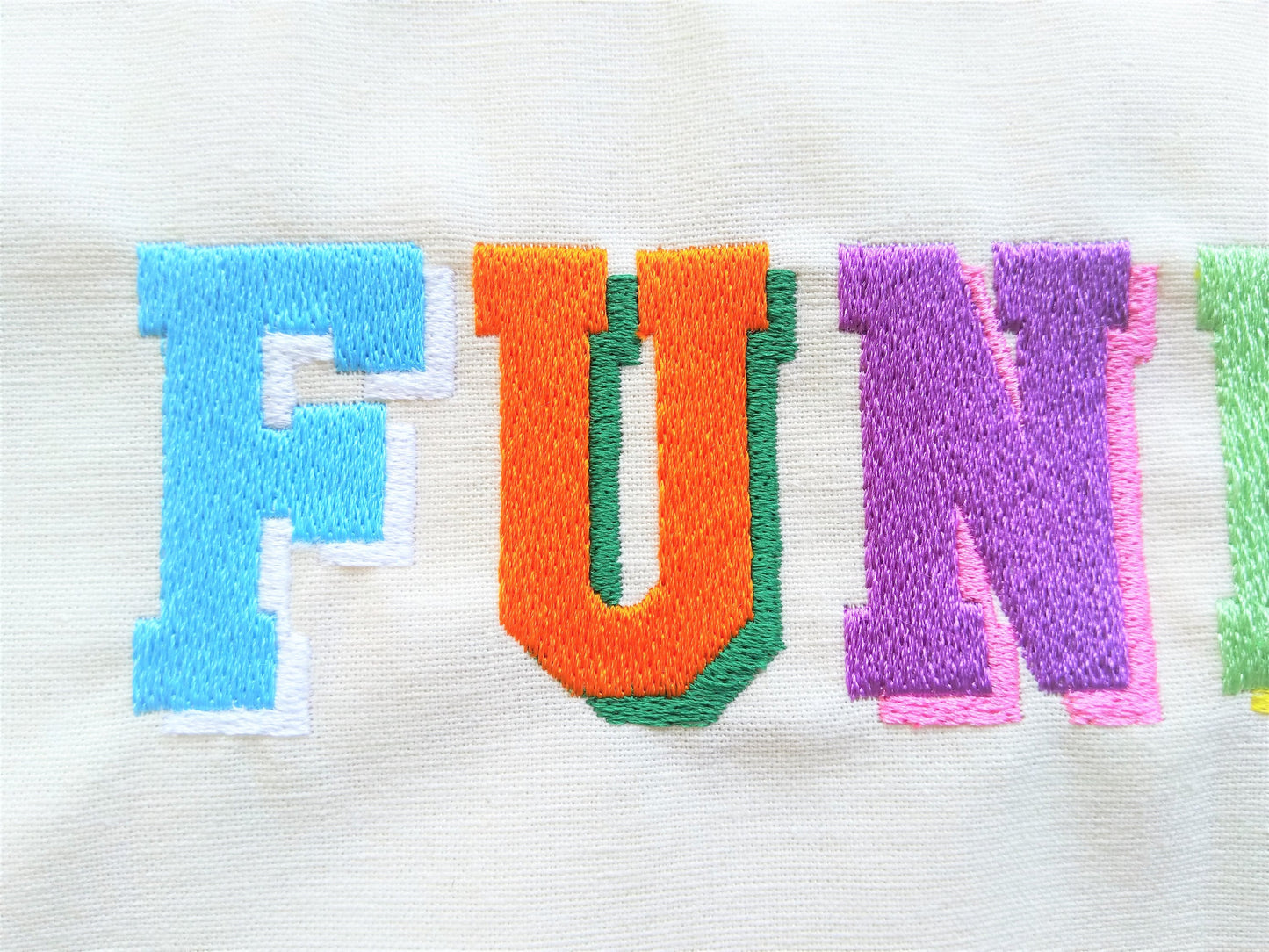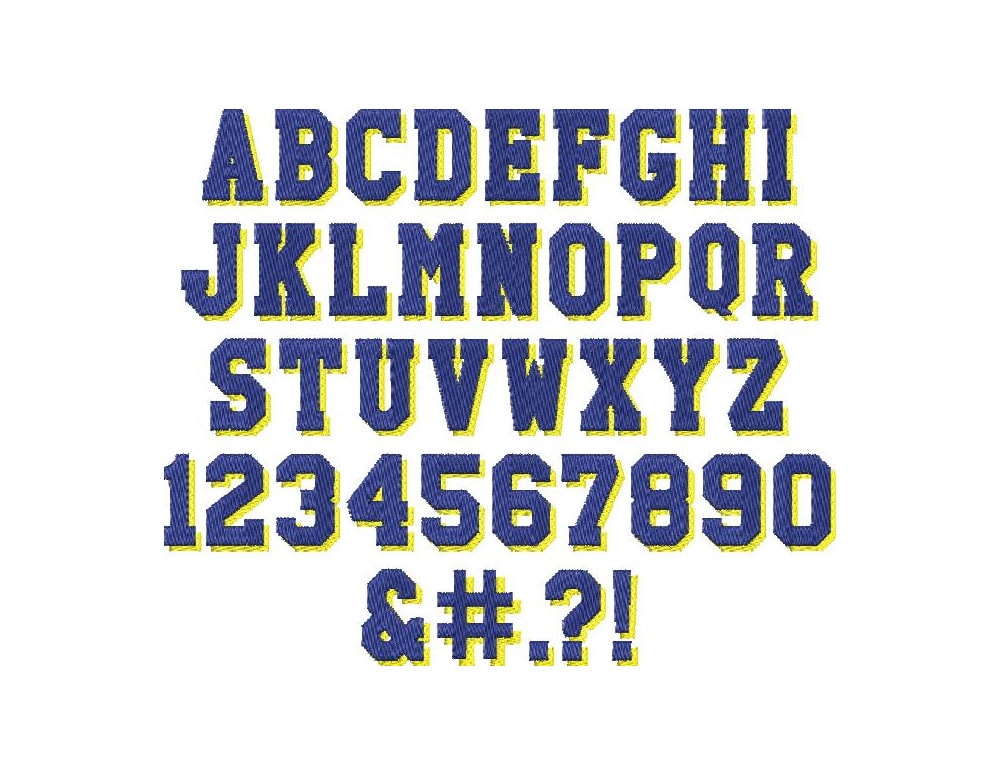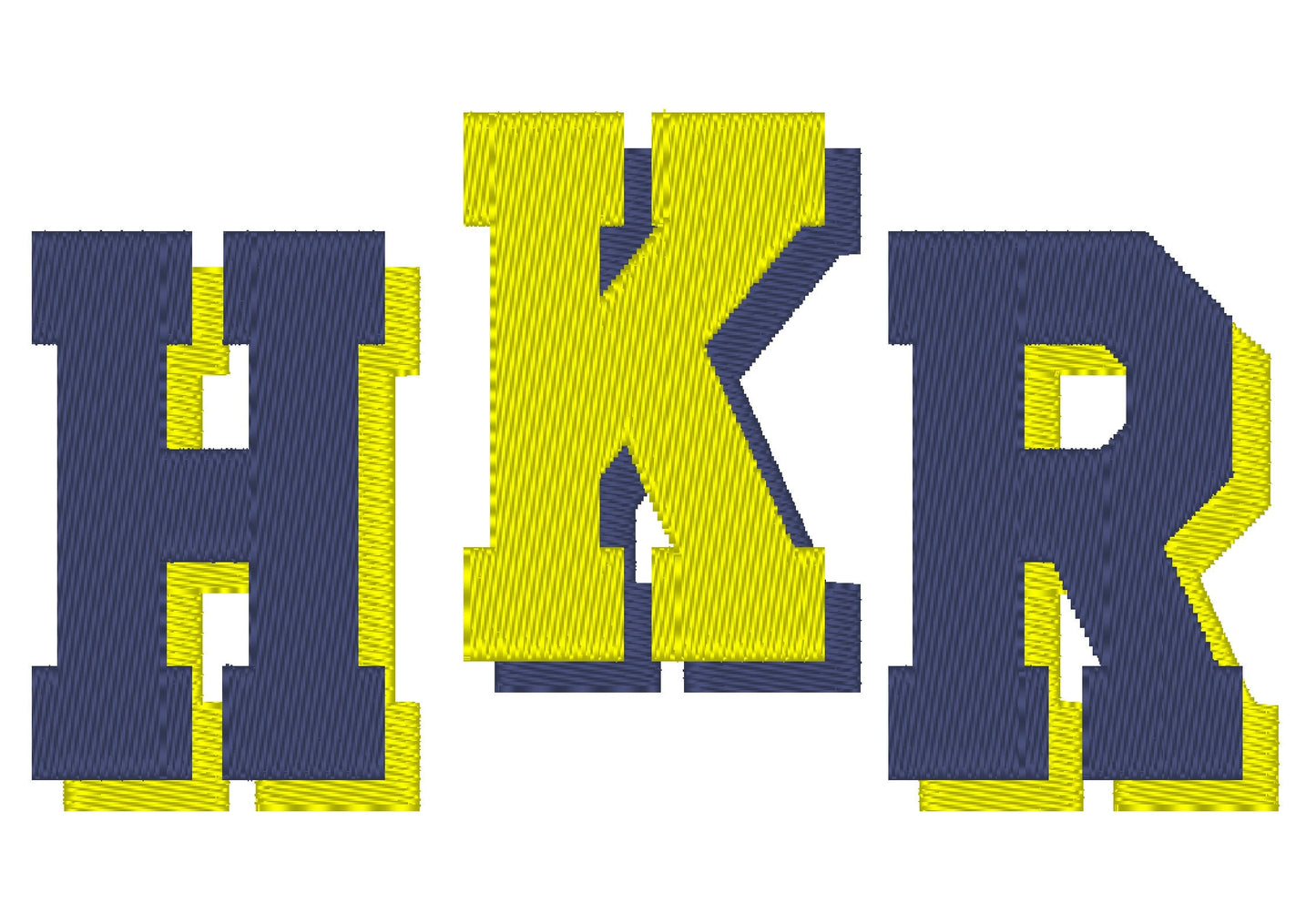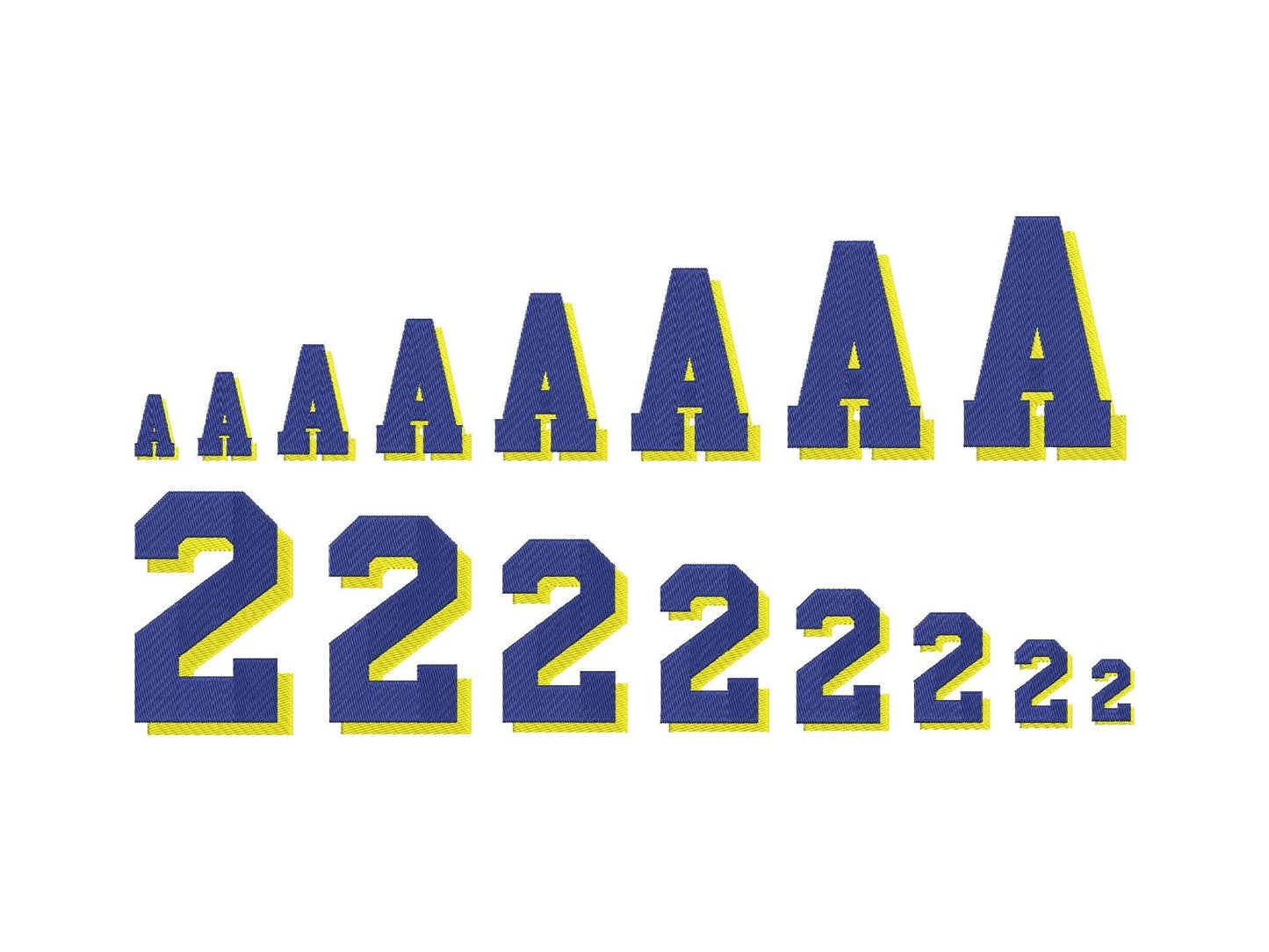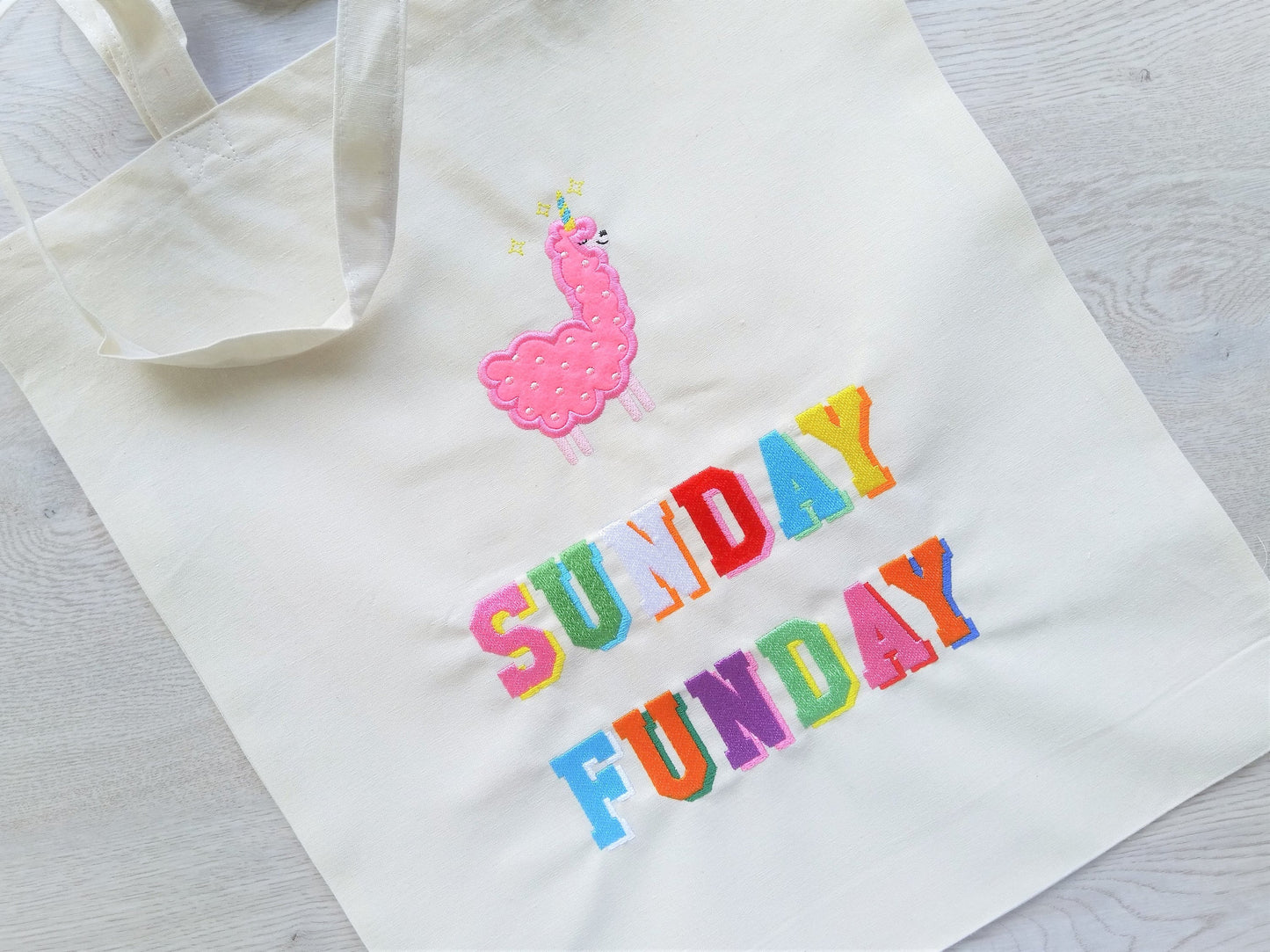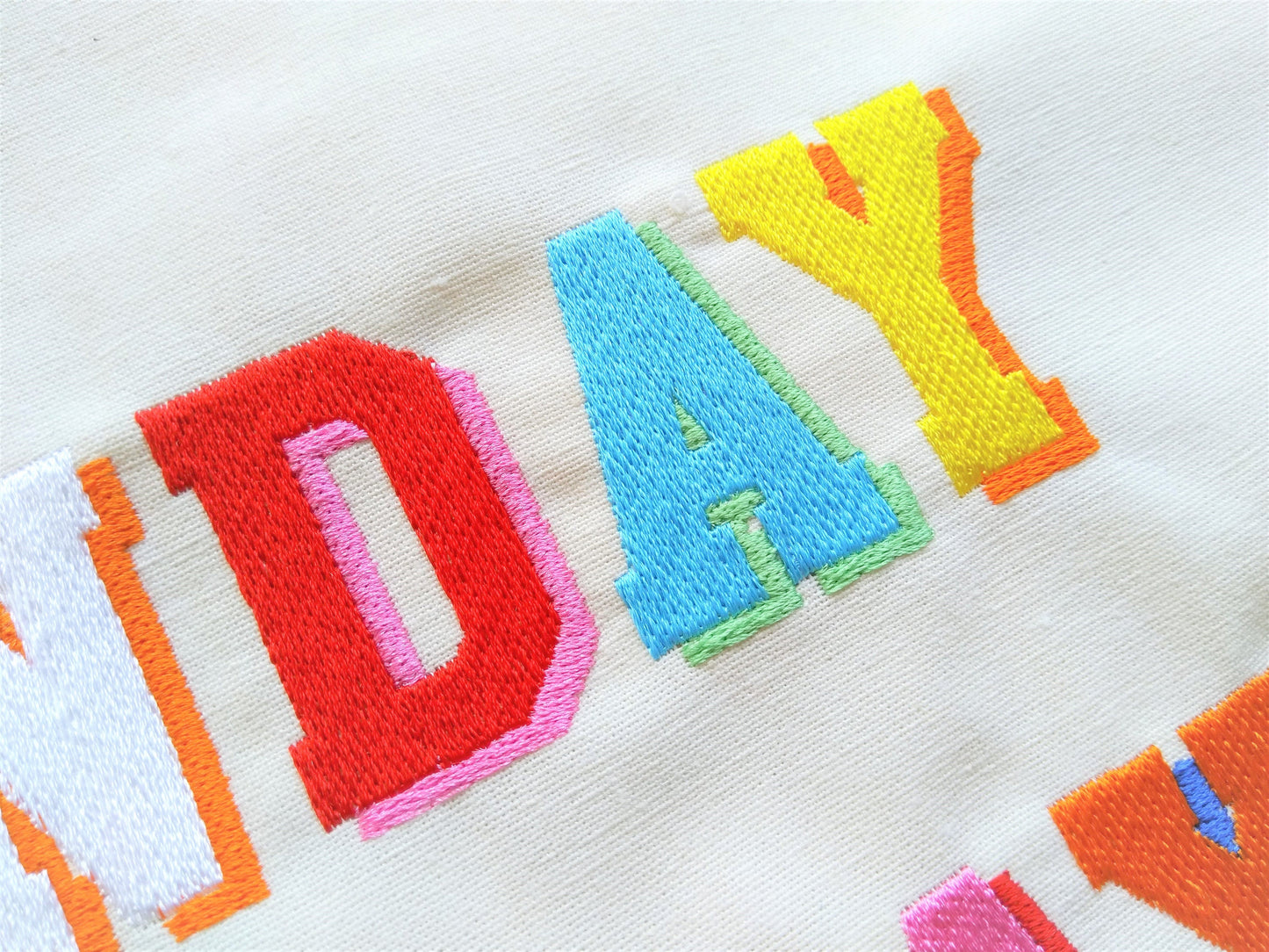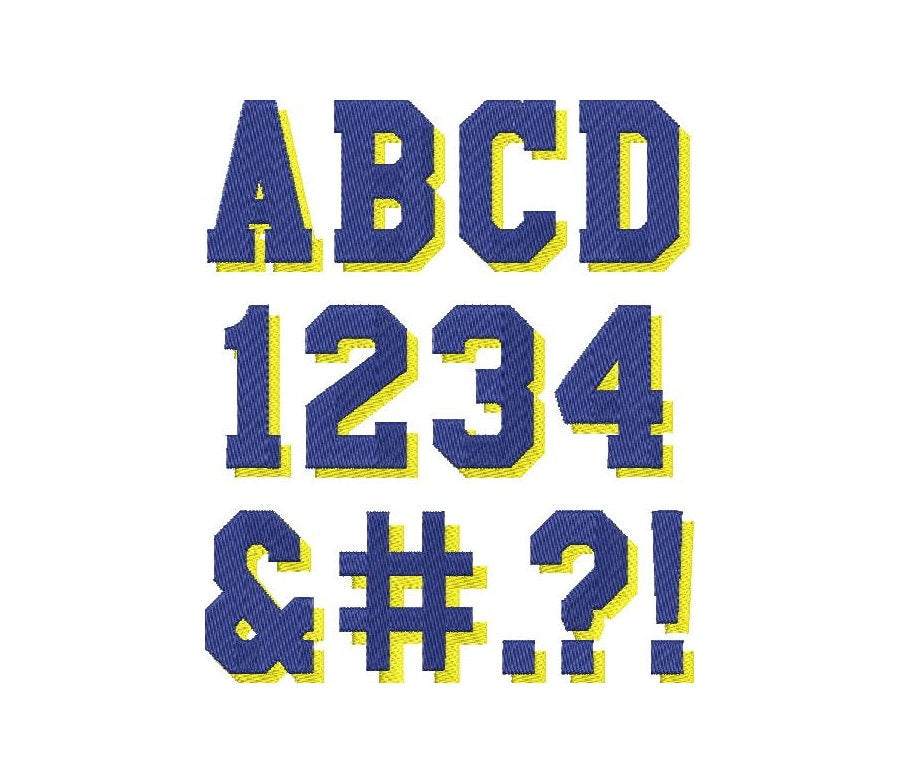
Stitched out beautifully! Thank you!
Very easy to use, came out great!
This font stitched out great! Such a good font for boy and girl stuff, so many different color combo opportunities!
I used this for cheer bows. They turned out perfect.
So far the few letters that I have used have stitched out beautifully. I’m just a bit confused as far as the font sizes to the files since it’s not included on the file names.
Likes the font but couldn't use it for my project. Hoping to use it later.
This embroidered beautifully! I used for some wedding bags, stitching was flawless :)
Stitched out beautiful and perfect.
This font is nice - I had some letters that were off but for the most part happy with it
Stitched out so beautifully, I can't wait to use it more
This font was perfect for my project 😍😍😍
Can’t wait to use in my embroidery projects!
Top! Un vrai plaisir et très jolie résultat!
Loved how it stiched out!
I love this font and stitched out wonderfully on a sweatshirt!
Looking forward to using this.
Great stitch out. Looks fantastic
I love this item for my daughter
Wonderful font set. I am so excited to use this regularly.
Quality was not what i expected for the price i paid. The lettering doesn’t look neat after stitching has been completed.
All stitched and the letters pop! Looks great!
Love it, can’t wait to embroider it
Super cute font. Haven’t used it yet but am excited to add it to my next project.
The prettiest fonts!!!
kieranwaynesmith — 1 out of 5 — July 29, 2023
they didn't shadow properly. missed out some stitches. quite disappointed as I loved the design
Inactive — 5 out of 5 — July 14, 2023
Love it! Great quality and easy to use.
Inactive — 5 out of 5 — July 10, 2023
WORKS GREAT EASY TO IMPORT
Brooklin — 5 out of 5 — July 02, 2023
Great stitch out for sure
Ashley — 5 out of 5 — June 30, 2023
So Cute! Love this fun font.
Shirley — 5 out of 5 — June 16, 2023
Stitched out fine, no problem to report.
Rose — 5 out of 5 — May 01, 2023
Good stitch out, no issues.
Cheryl — 3 out of 5 — April 20, 2023
Cute design. Just won't fit my hoop.
Erica — 5 out of 5 — March 31, 2023
Wonderful stitchout! No issues and stitched flawlessly!
Top — 5 out of 5 — March 27, 2023
come out real nice and pretty
The — 5 out of 5 — March 04, 2023
Stitched wonderfully. Looks absolutely amazing.
The — 5 out of 5 — March 04, 2023
Stitched wonderfully. Looks absolutely amazing.
Lisa — 5 out of 5 — February 20, 2023
I love this font. I've made several sweatshirts. It stitches out perfectly.
Emily — 5 out of 5 — February 09, 2023
Really cute, easy design.
Essie — 5 out of 5 — February 09, 2023
It just like the picture came out beautiful
Courtney — 5 out of 5 — January 26, 2023
Beautiful and stitches so easily
Ann-Marie — 5 out of 5 — January 24, 2023
Beautiful stitch out, good quality
Mirjam — 5 out of 5 — January 09, 2023
Ik ben heel blij met deze aankoop! Ziet er heel mooi uit en stikt goed uit!
Inactive — 4 out of 5 — November 28, 2022
These are cute and I love that there was an option for an installable font so I didn’t have to upload every character! However they didn’t stitch out as well I expected, and the shadow and letter don’t completely line up like the photos. Still pretty cute regardless
Angela — 5 out of 5 — November 23, 2022
Absolutely LOVE!!! 🤩🤩🤩
Vicki — 5 out of 5 — November 17, 2022
Great Design. Worked very well11
Kismet — 5 out of 5 — March 12, 2022
beautiful font and size options
L — 1 out of 5 — January 30, 2022
Please check the fine print before purchasing! Seller is not helpful.
Julie — 5 out of 5 — November 07, 2021
Lovely files. Can’t wait to stitch them out.
Olivia — 5 out of 5 — October 28, 2021
Stitches out perfectly, thank you!!
Dorothy — 5 out of 5 — October 06, 2021
Stitched beautifully!!! Thank you for such a cute font!
Aonna — 5 out of 5 — September 24, 2021
Love the file. It was easy to use and stitched out nicely.